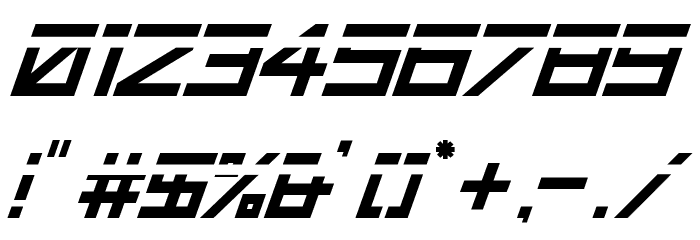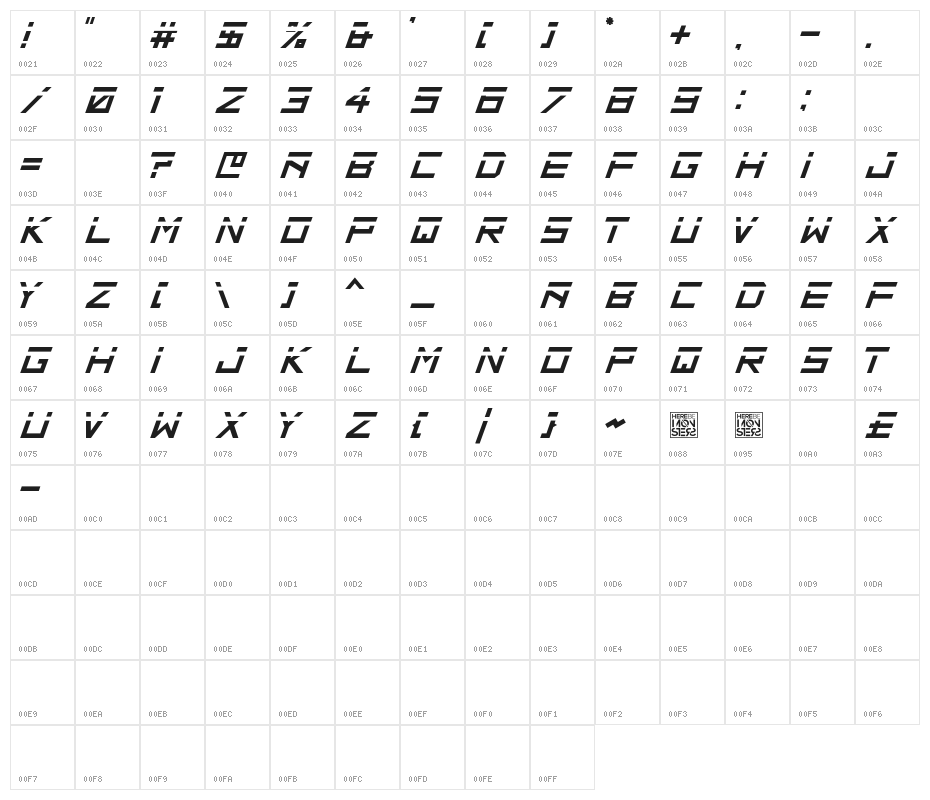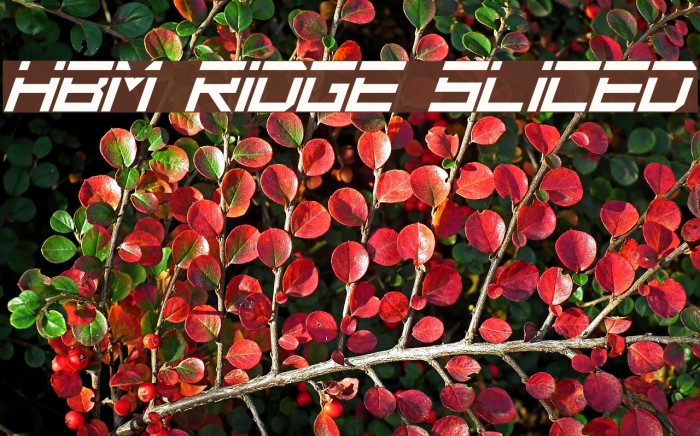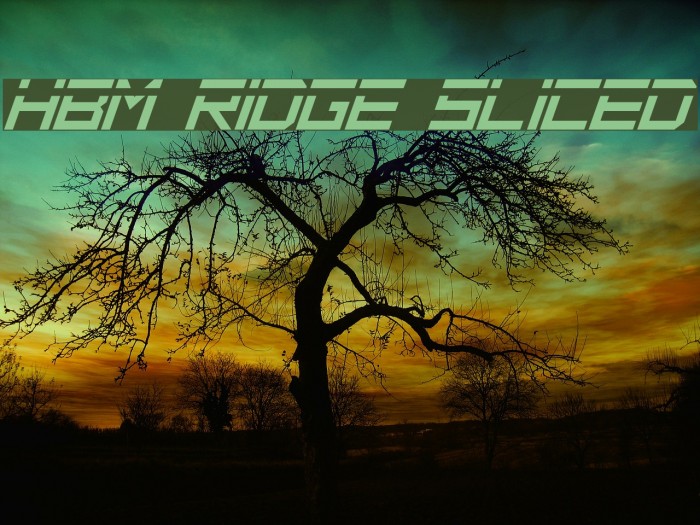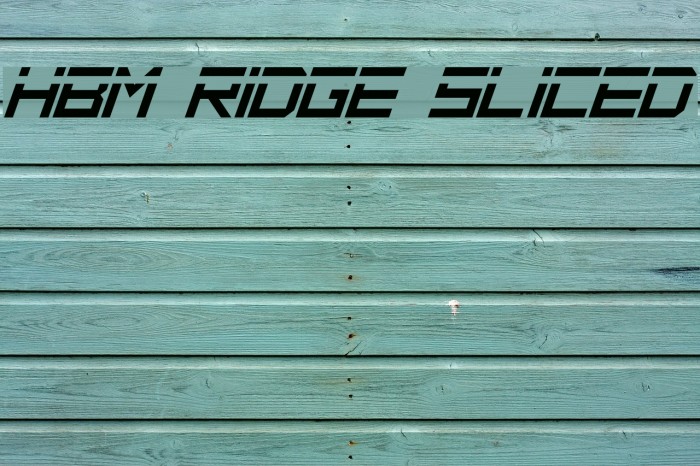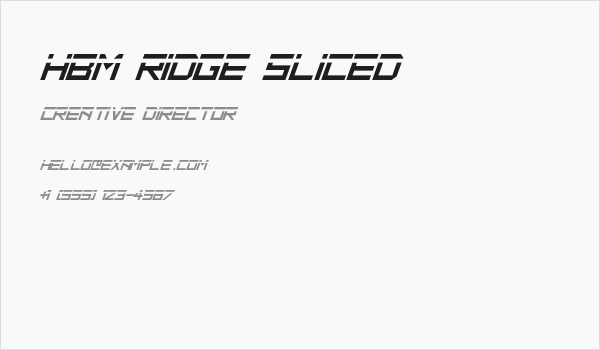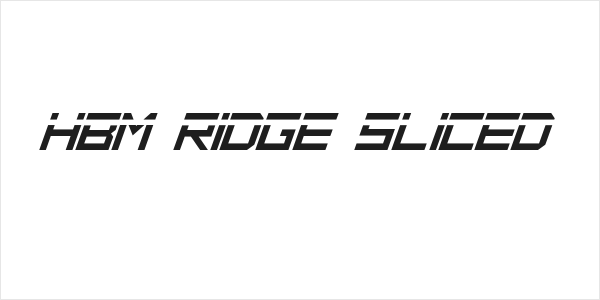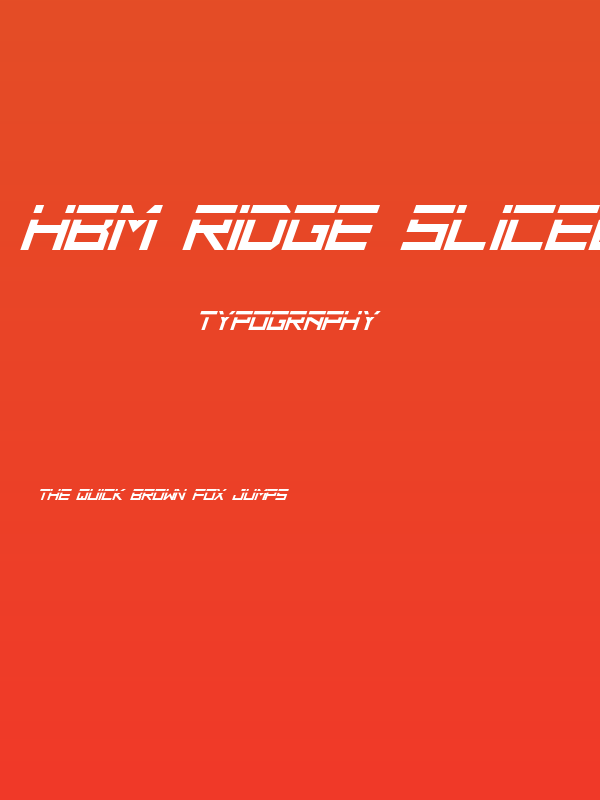
HBM Ridge Sliced Font
HBM Ridge Sliced Description
This font features a bold, angular design with a futuristic and dynamic appearance. The characters are sliced diagonally, giving them a unique, fragmented look that suggests movement and speed. The uppercase letters are particularly striking, with sharp edges and a geometric style that stands out. The numbers and special characters maintain this aesthetic, ensuring consistency across all glyphs. This font is ideal for projects that require a modern, edgy feel, such as technology branding, sports team logos, or sci-fi themed designs.
| Use Case | Logos, Headlines |
| Proposed Projects | Ideal for technology branding, sports logos, and sci-fi themed designs. |